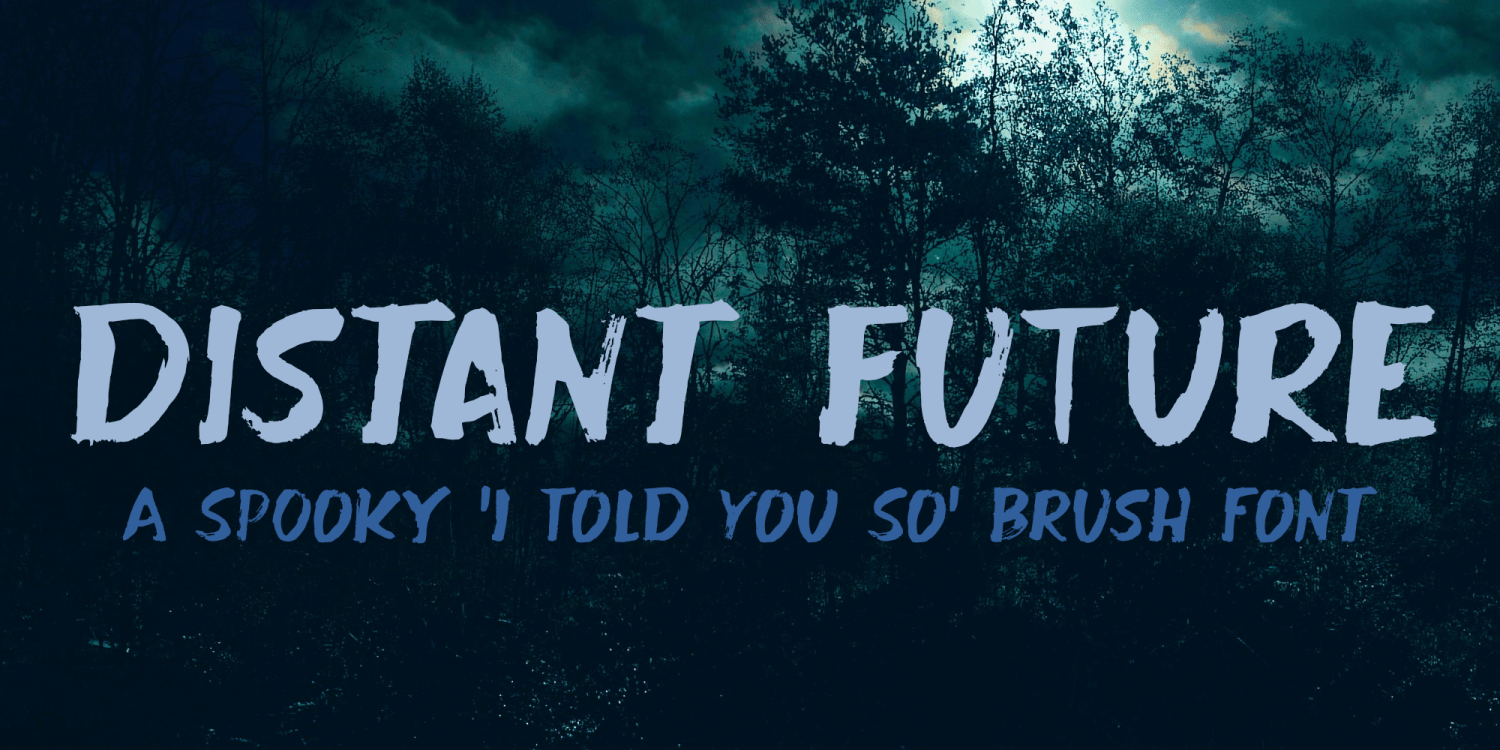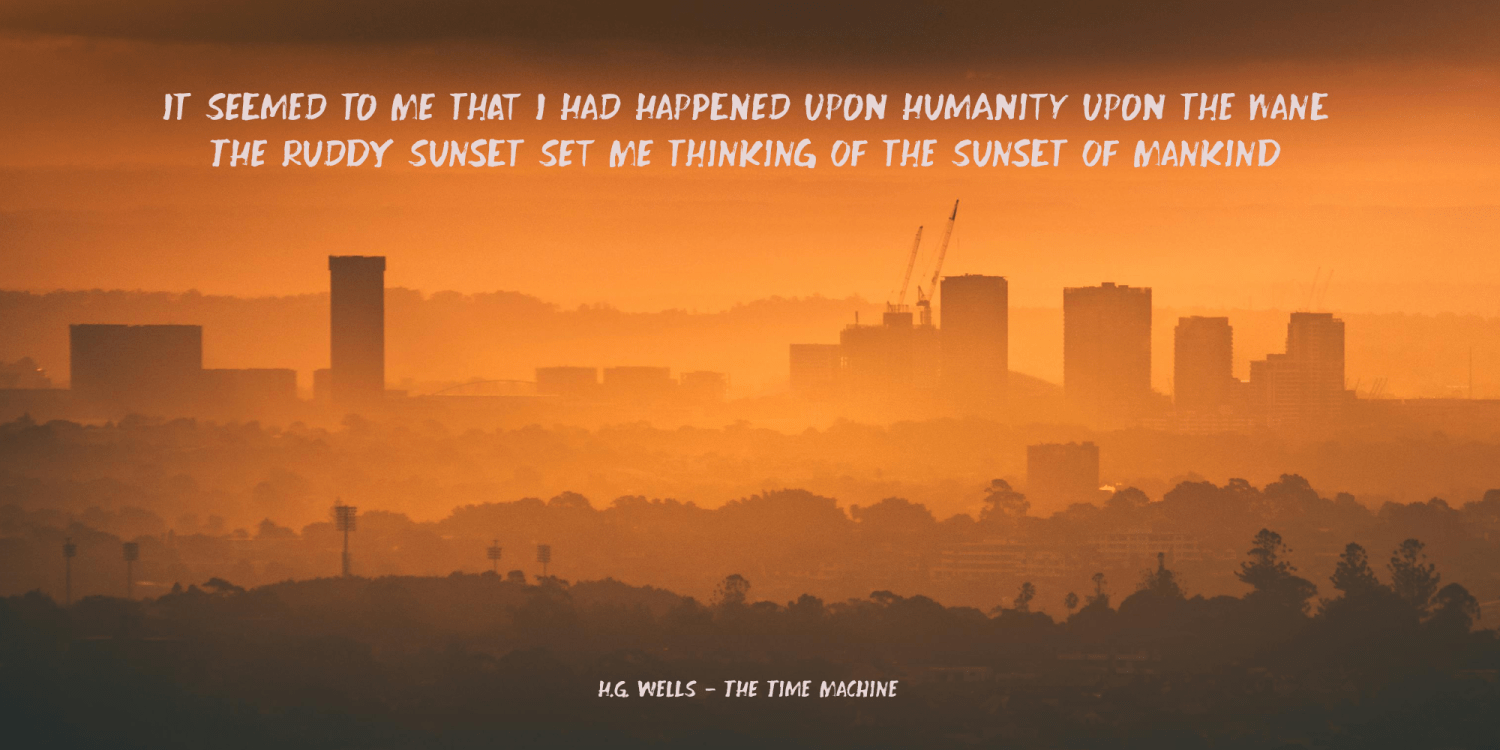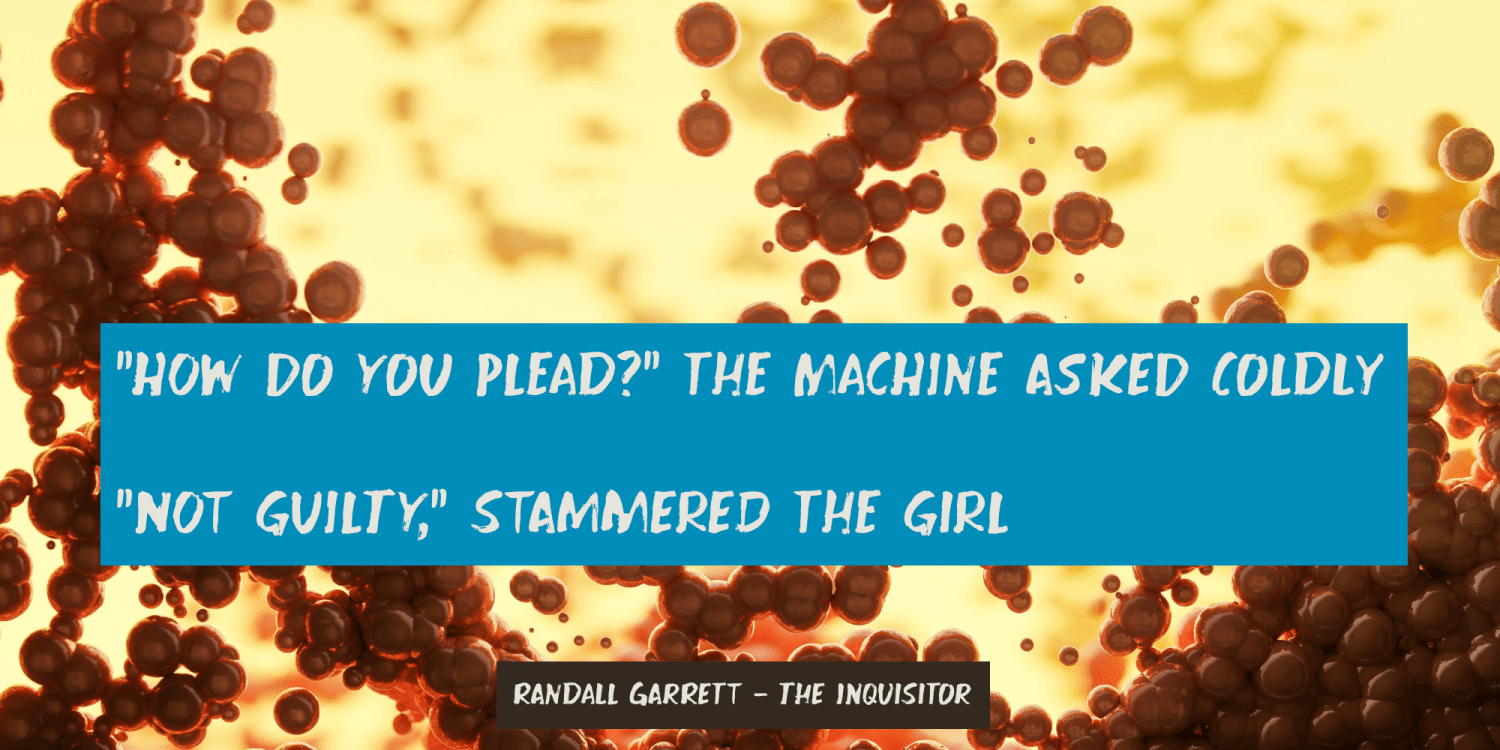
Distant Future
Distant Future is a bit of a strange font: it looks spooky, it may even be scary, but underneath all that grunge is a really sophisticated font. Of course, you can use it for your protest signs, your posters, your Halloween websites and anything that needs a bit of horror, but it would look soooo good on product packaging and book covers as well. So, go ahead and give it a whirl!
Distant Future by Hanoded